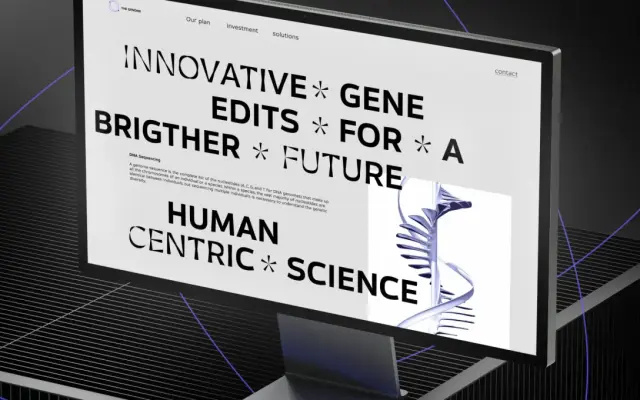
Calleo
Fontfabric · Plamen Motev, Léon Hugues, Léo Guibert · 2023
A geometric sans-serif family in 36 styles plus a variable font, split between a neutral sub-family and a more expressive counterpart called Flux.
Conceived by Plamen Motev in 2017 and completed with French designers Léon Hugues and Léo Guibert, Calleo launched in March 2023. The family divides into two sub-families: Calleo, which offers clean, restrained forms across nine weights, and Calleo Flux, which introduces more dynamic character for expressive work. Extended Latin and Cyrillic coverage, a variable font, and a full OpenType feature set make it a functional choice for editorial, UI and identity projects.
A modern sans-serif with low contrast and clean construction typical of geometric grotesques, offering two distinct sub-families with contrasting personalities ranging from neutral to expressive.